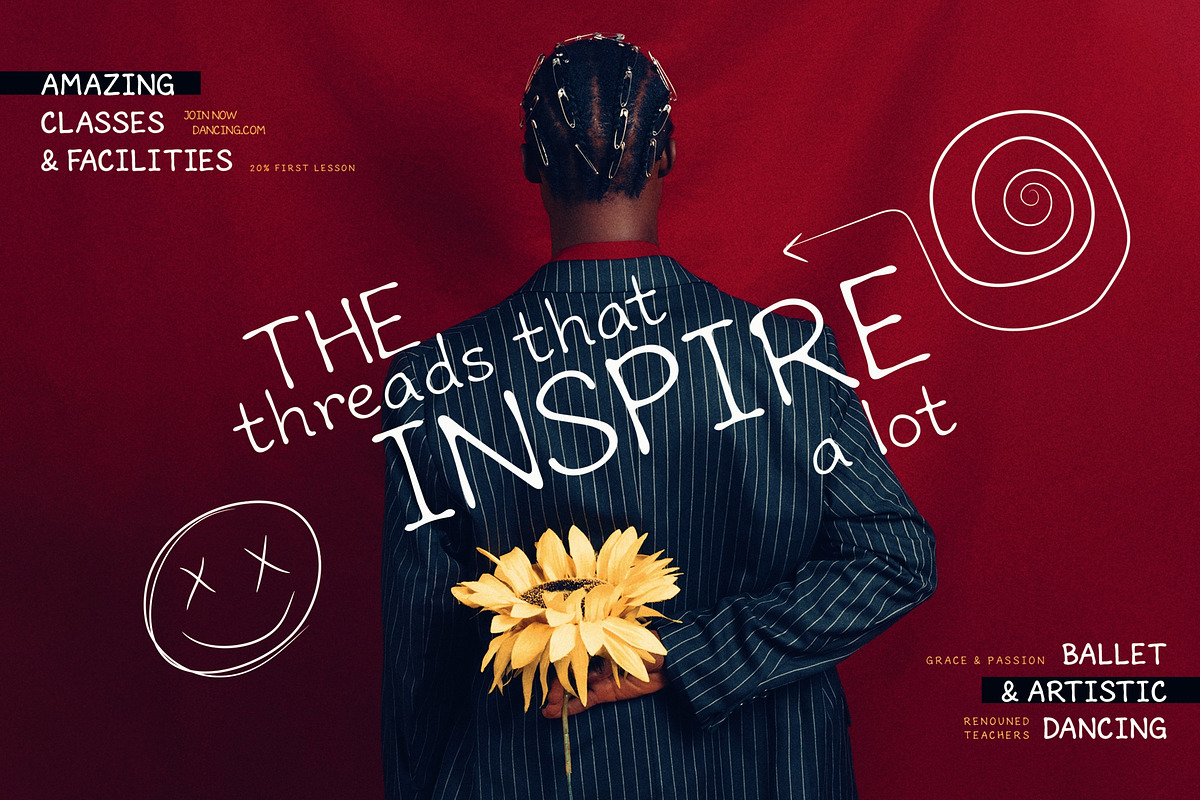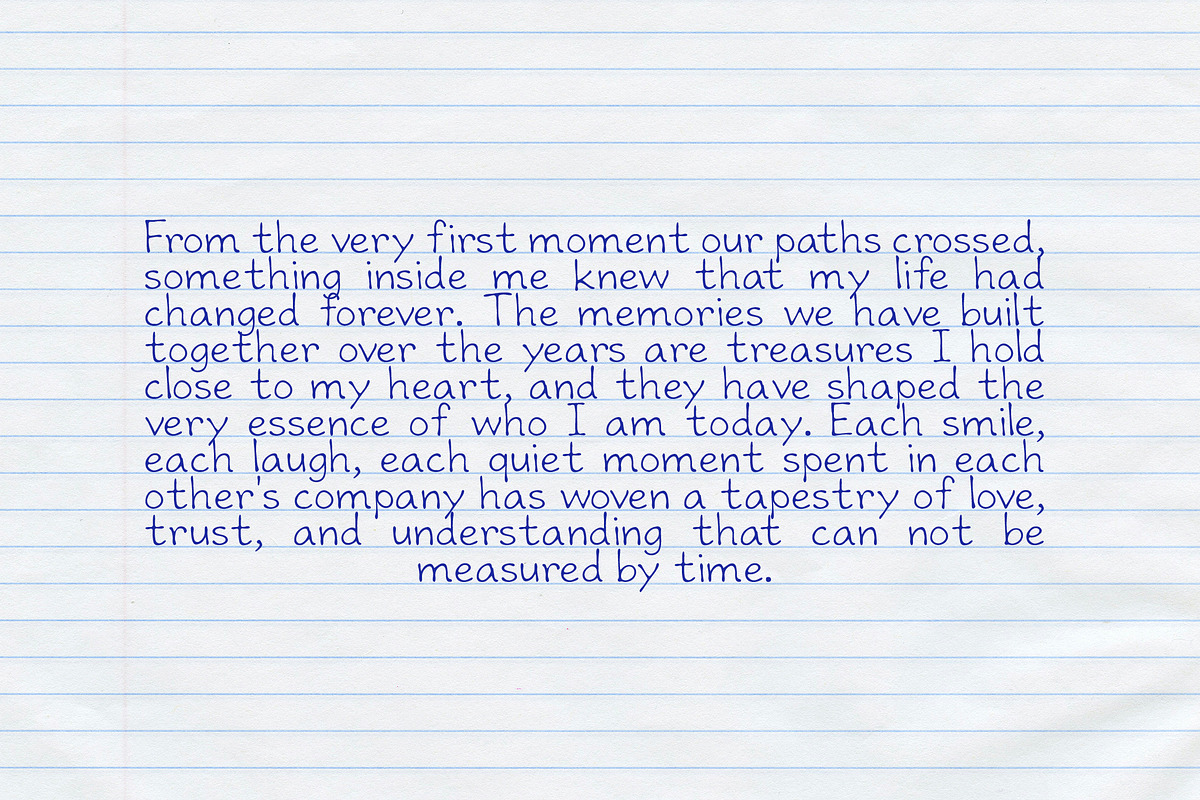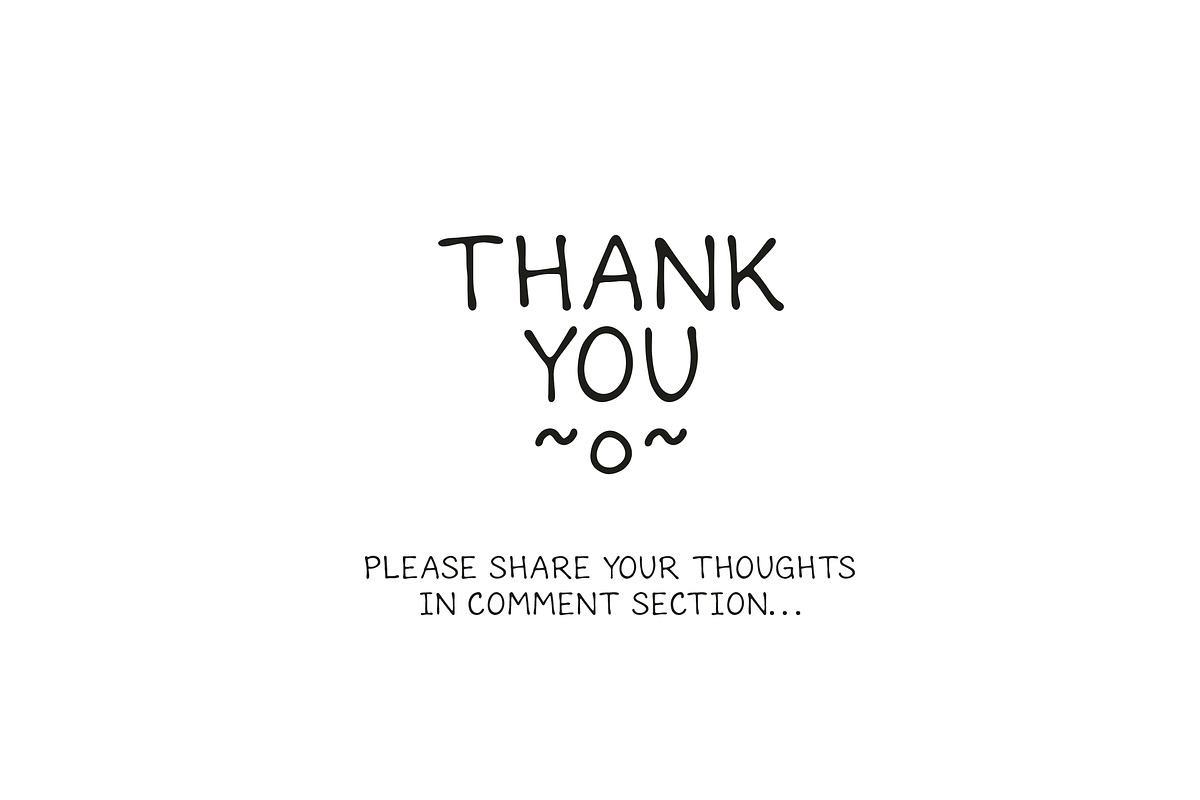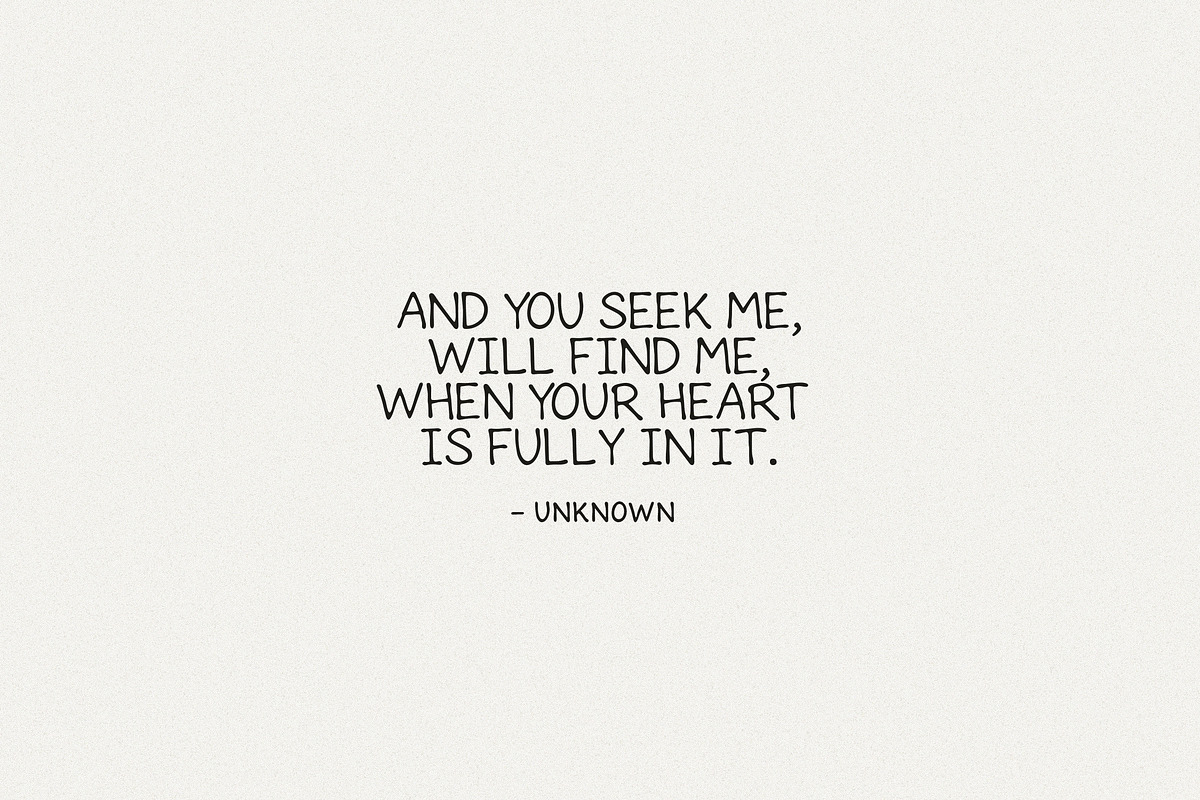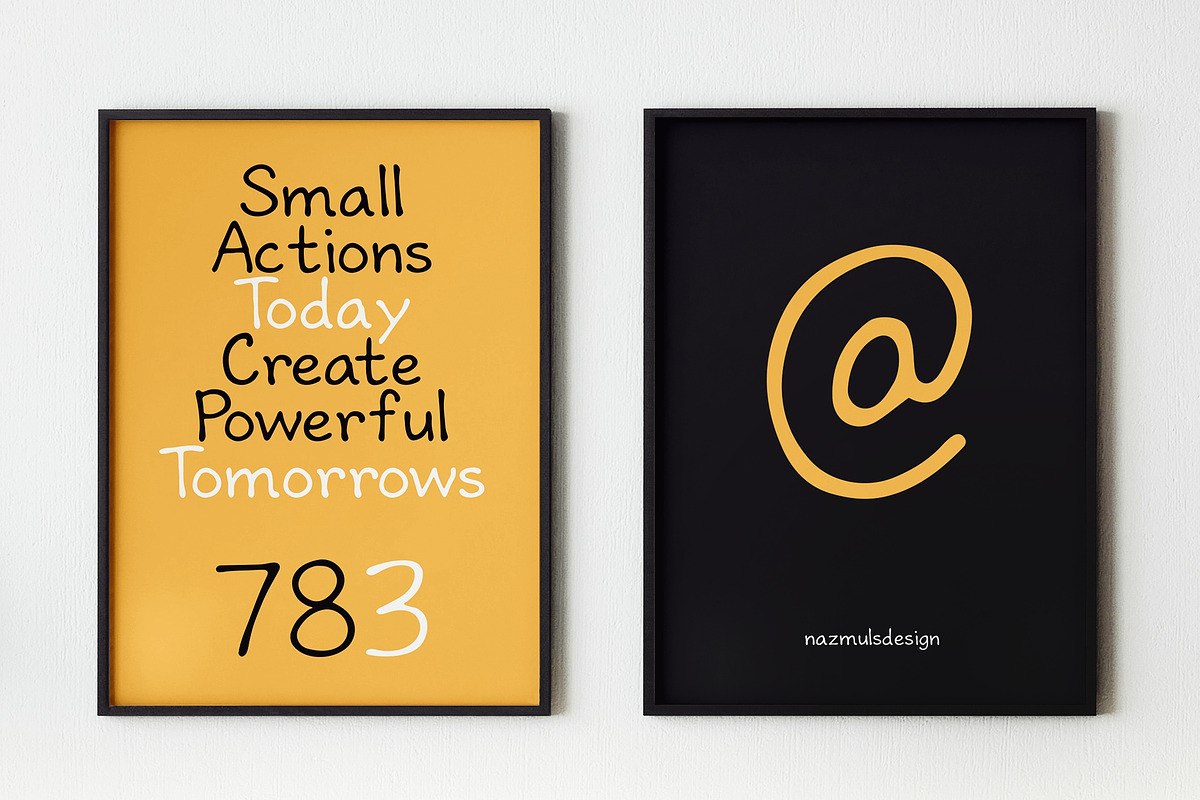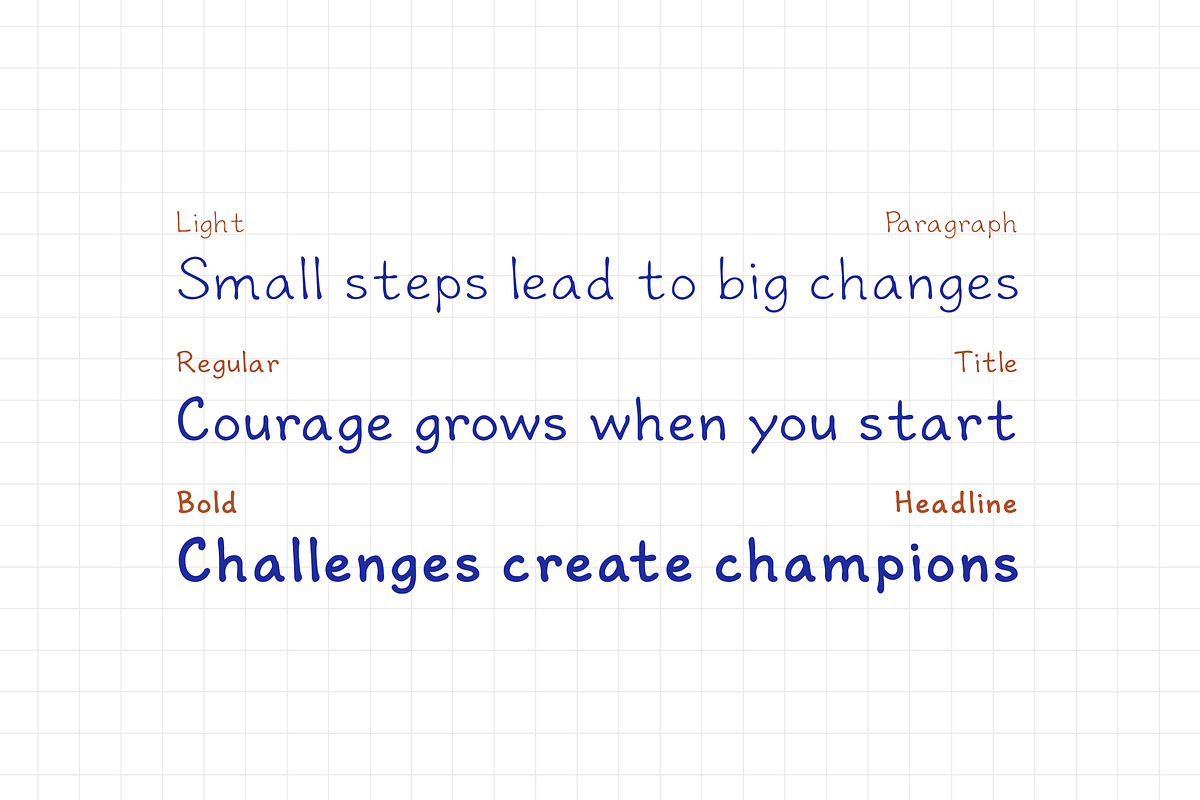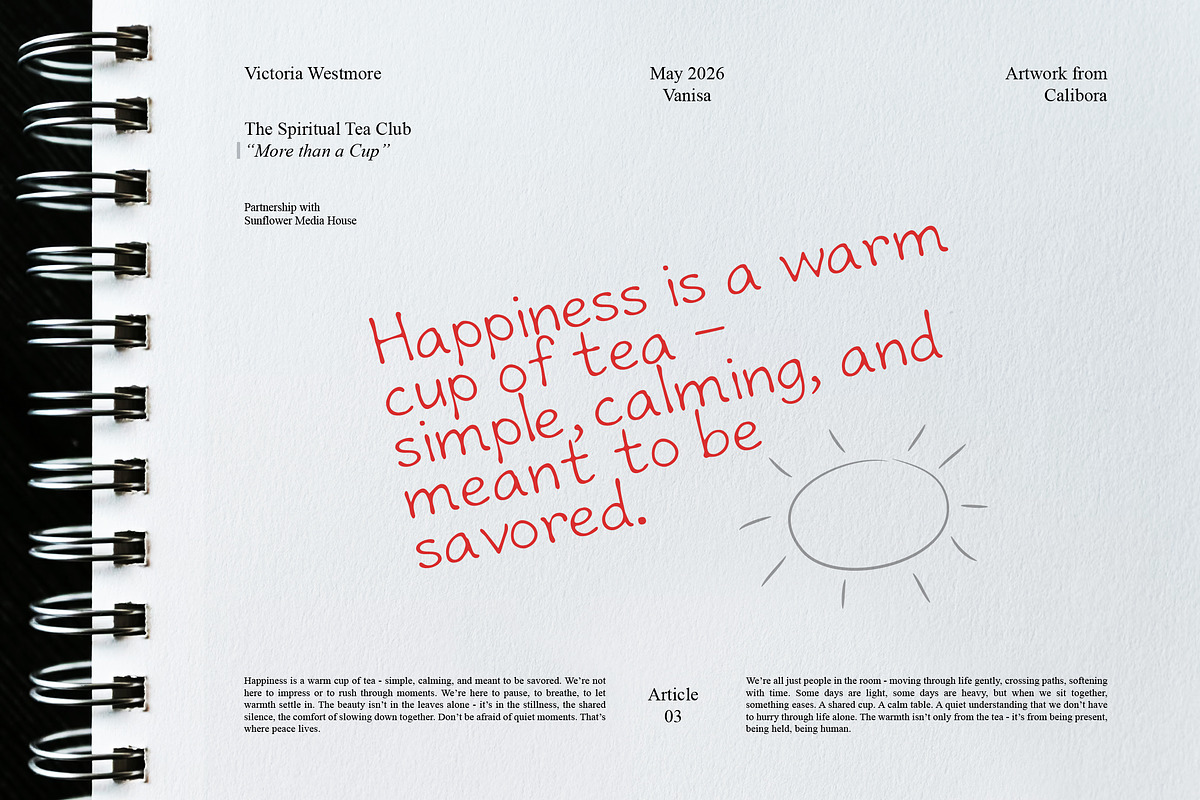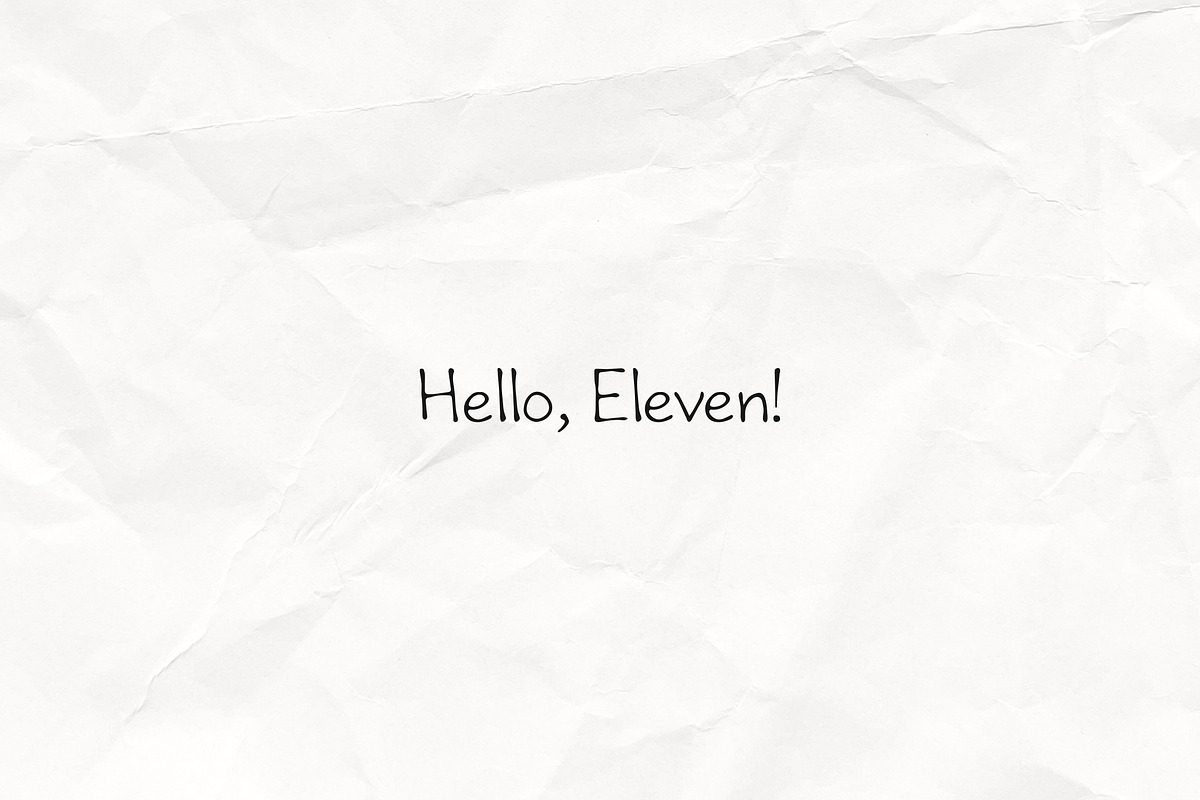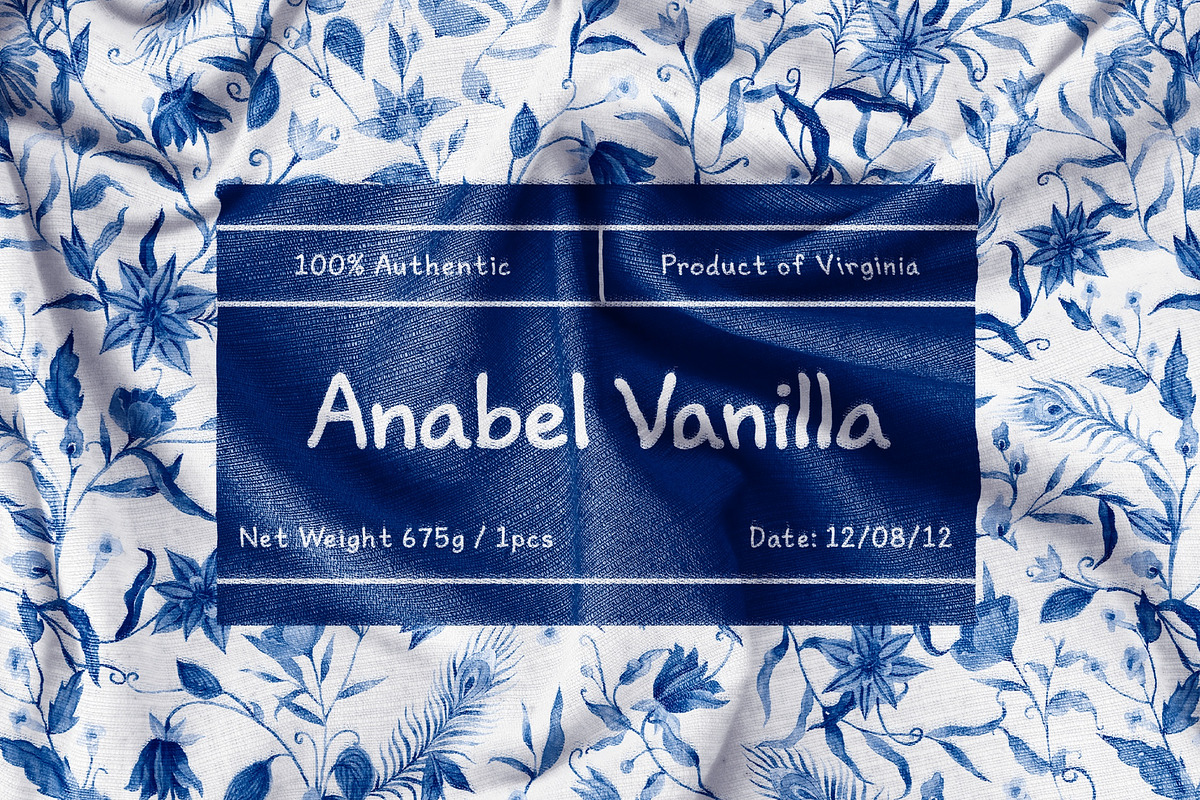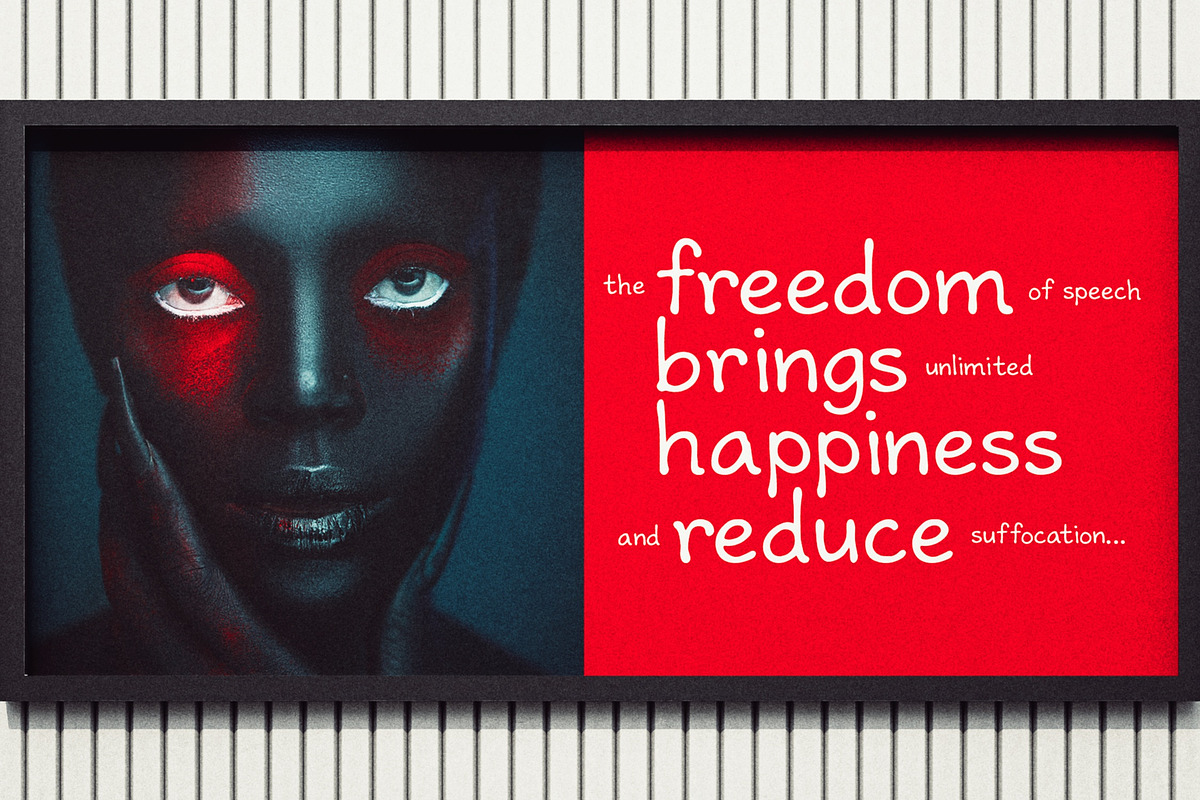
Fairy Silk | Handwritten
FairySilk is a refined handwritten typeface that captures the softness of natural strokes with a modern minimalist touch. Inspired by fluid ink movements and effortless pen flow, this font brings warmth, elegance, and personality into every letter.
Designed to feel organic yet polished, FairySilk blends smooth curves with subtle stroke variation, creating a graceful balance between casual charm and professional sophistication. Each glyph is carefully crafted to preserve the authenticity of real handwriting while maintaining clean readability.
Whether you're building a fashion brand, designing luxury packaging, crafting social media content, or creating signature-style logos, FairySilk delivers a soft yet confident visual presence.